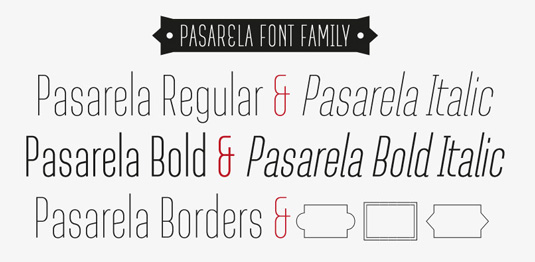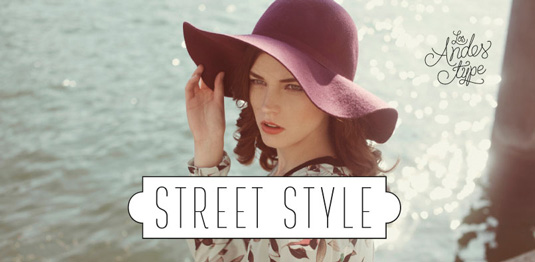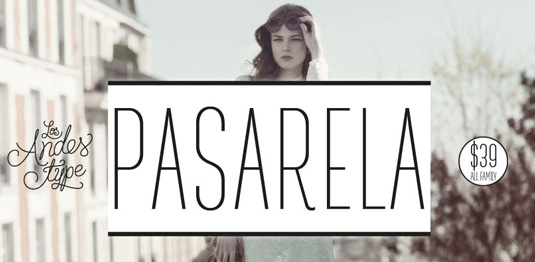
Font of the day: Pasarela
Pasarela from Los Andes
Inspired by the new culture of fashion in the streets, Pasarela is a fine, display typeface. Available from font shop HypeForType, the font is described as being "designed in two weights, plus a set of borders that can generate graphic compositions for application in blogs, magazines, posters and TV".